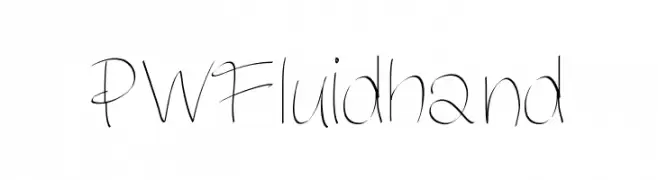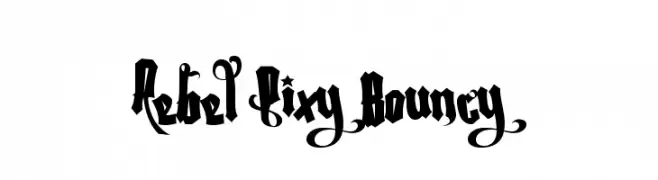
A playful, decorative font with bold, rounded characters and whimsical flair.
A bold, medieval-inspired font with dramatic serifs and a Gothic flair.
A playful, outlined script font with bold, rounded edges and whimsical flair.
A fluid, handwritten font with elegant, flowing lines and a casual flair.
A rugged, hand-drawn font with bold, textured strokes and an artistic flair.
A bold, decorative font with vintage flair and elegant flourishes.
A bold, decorative font with gothic and rebellious elements.
A bold, gothic-style font with intricate details and dramatic flair.
A bold, graffiti-inspired decorative font with expressive strokes and urban flair.